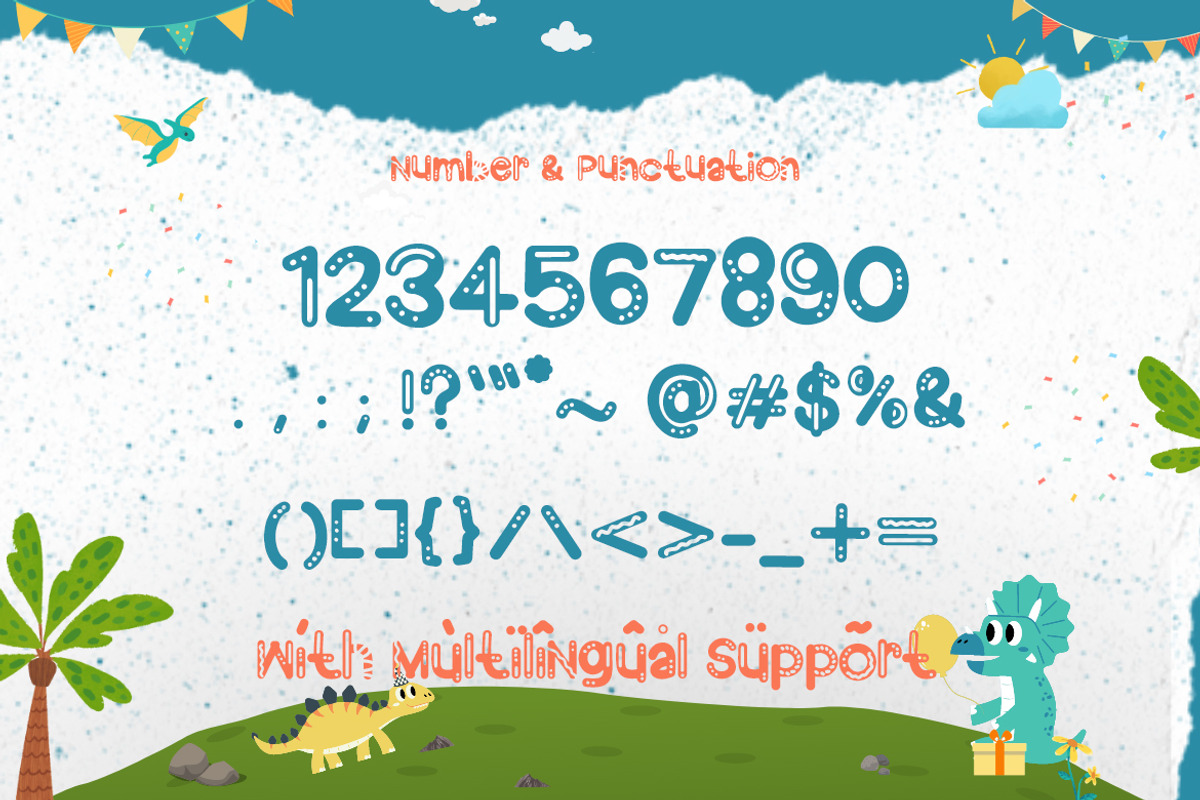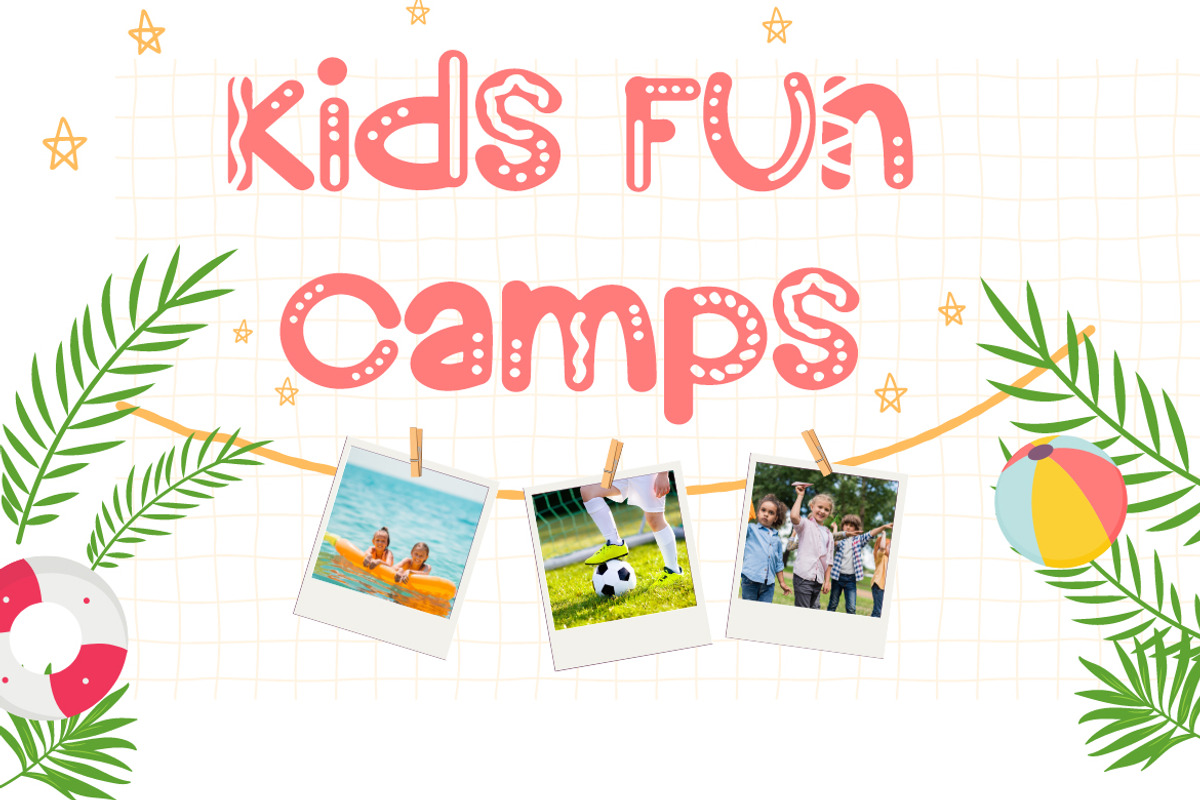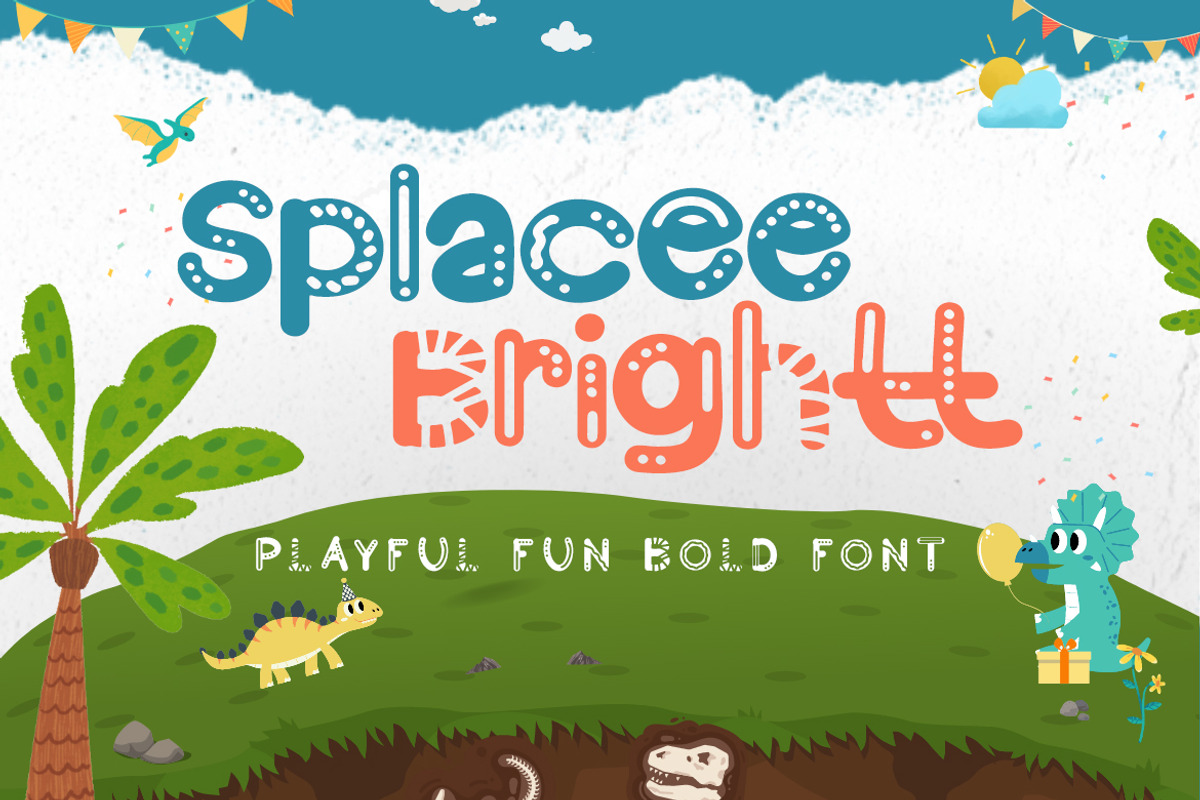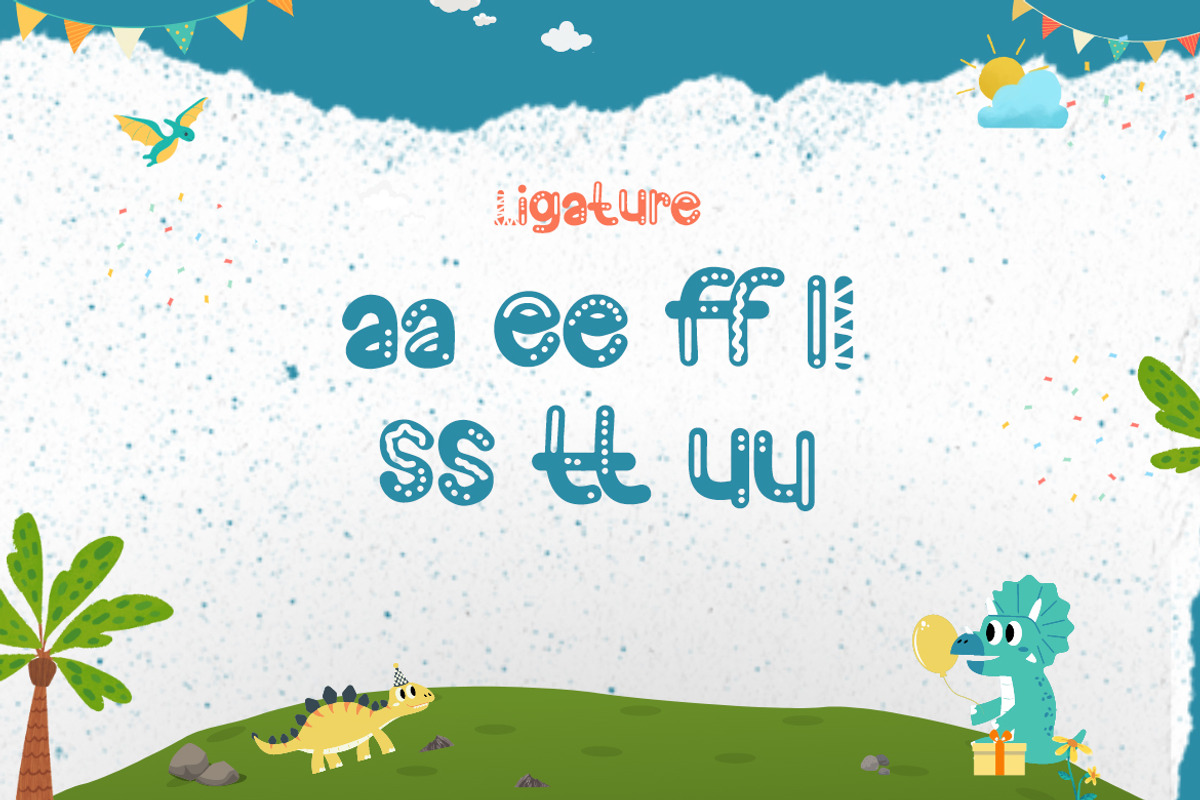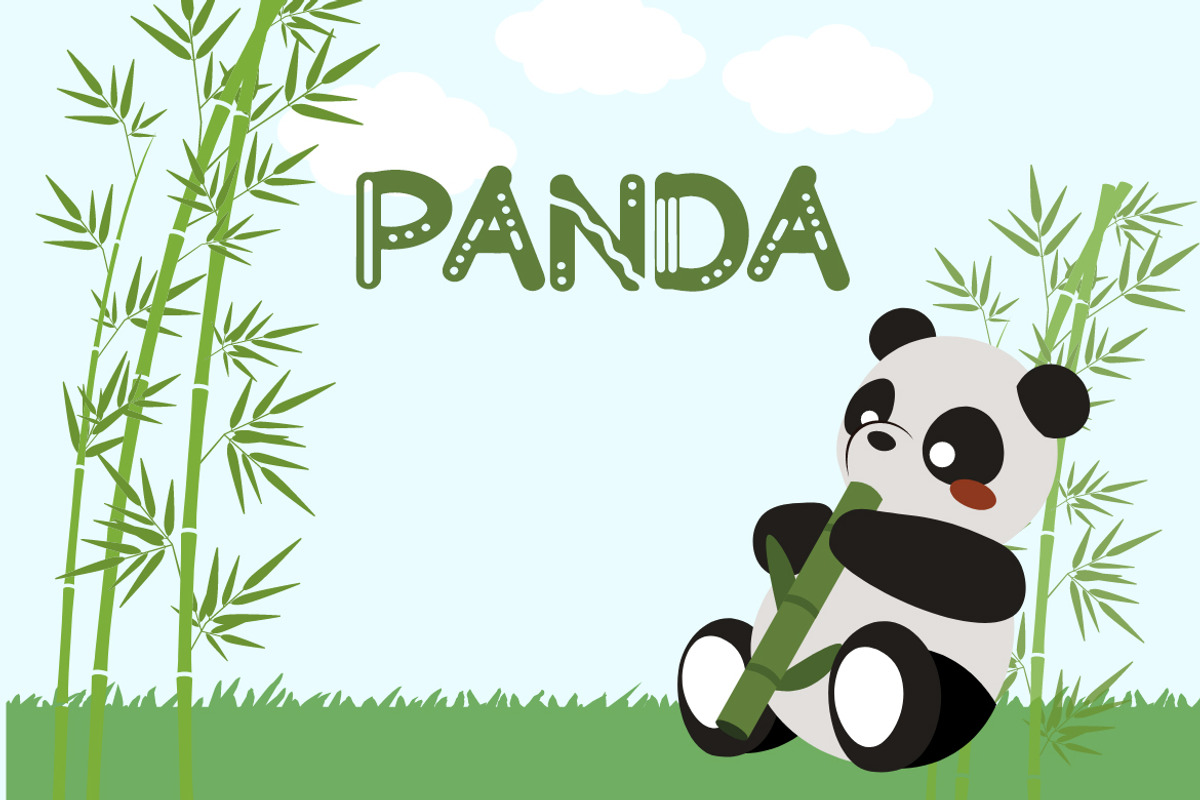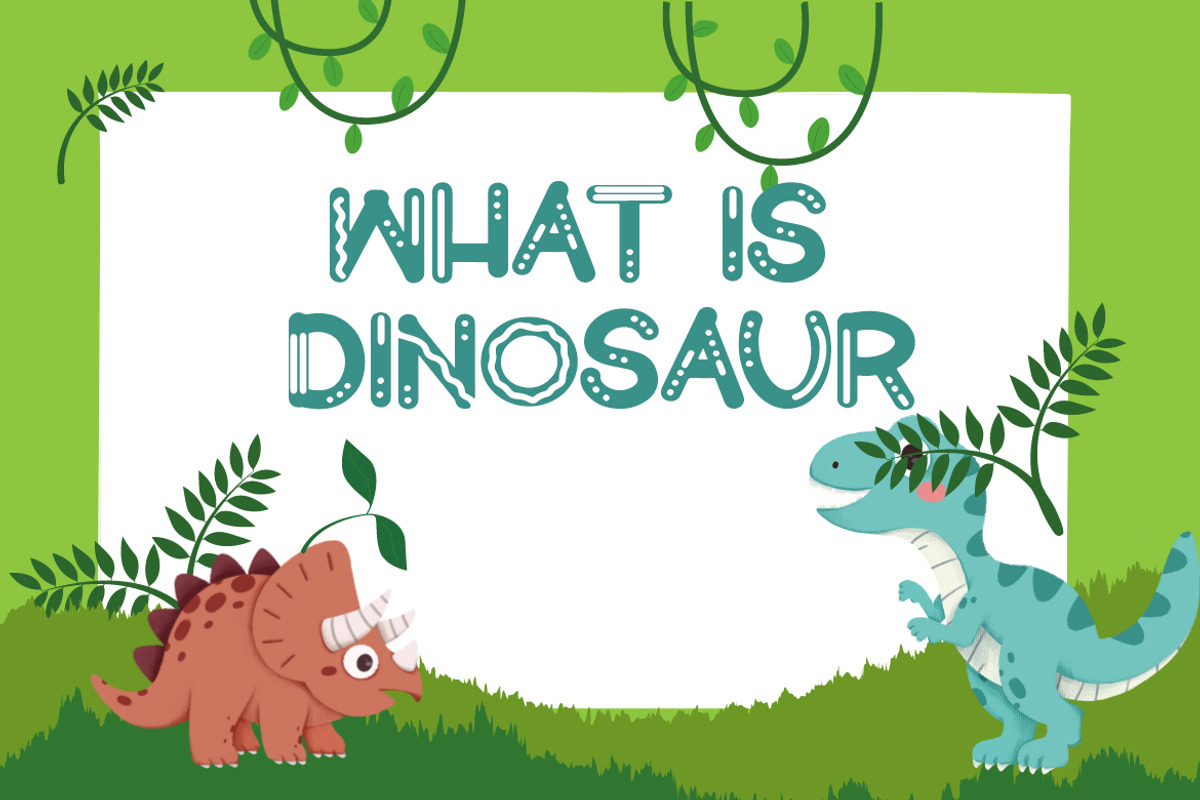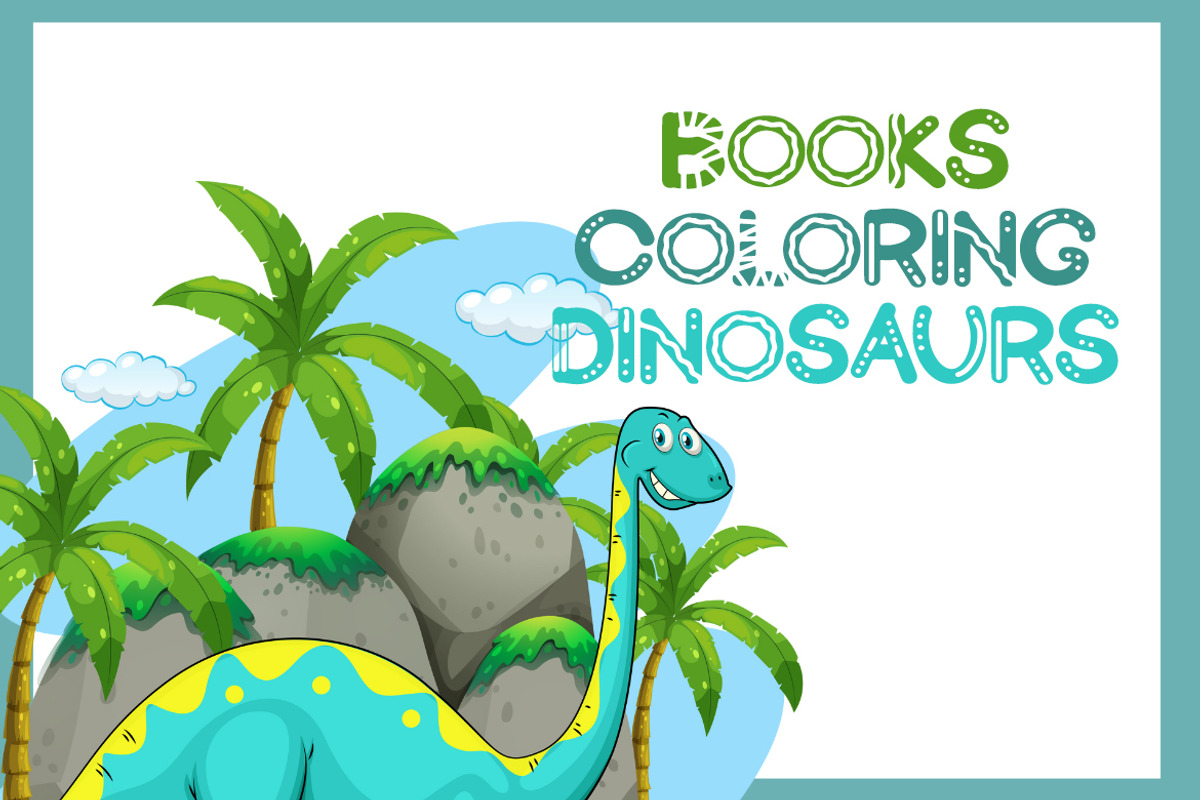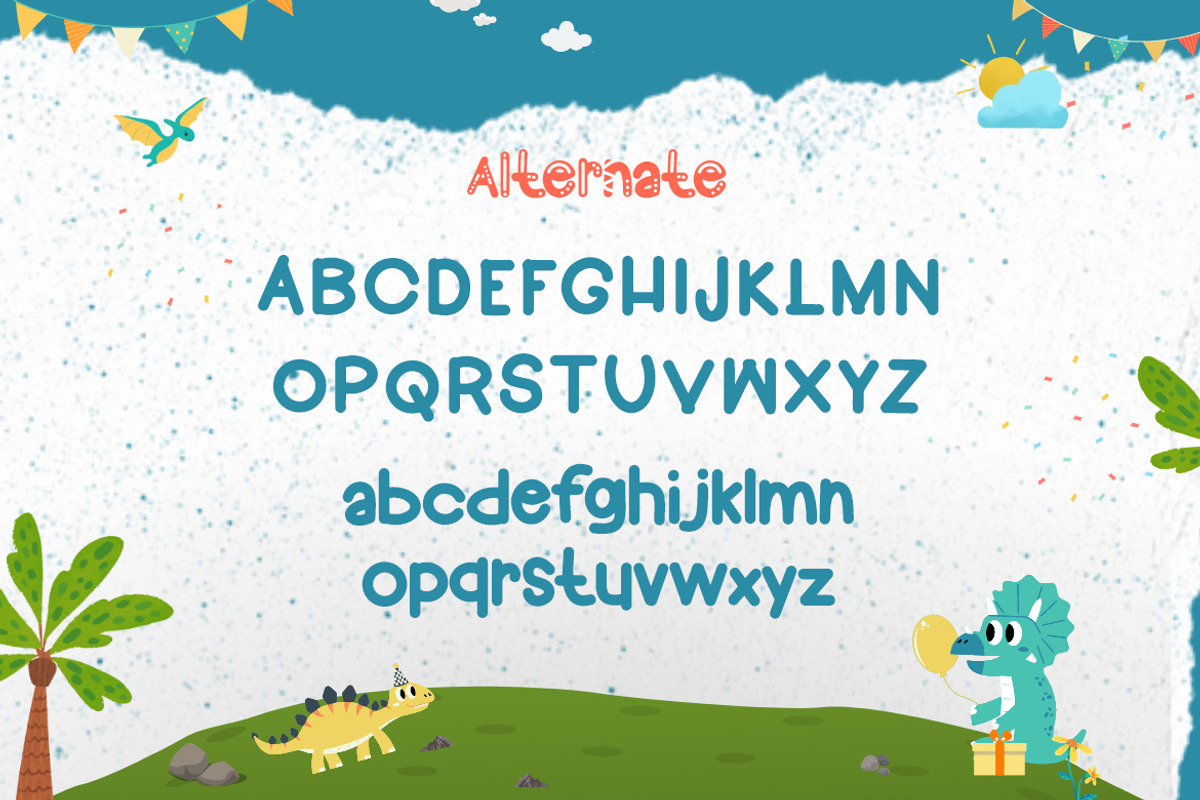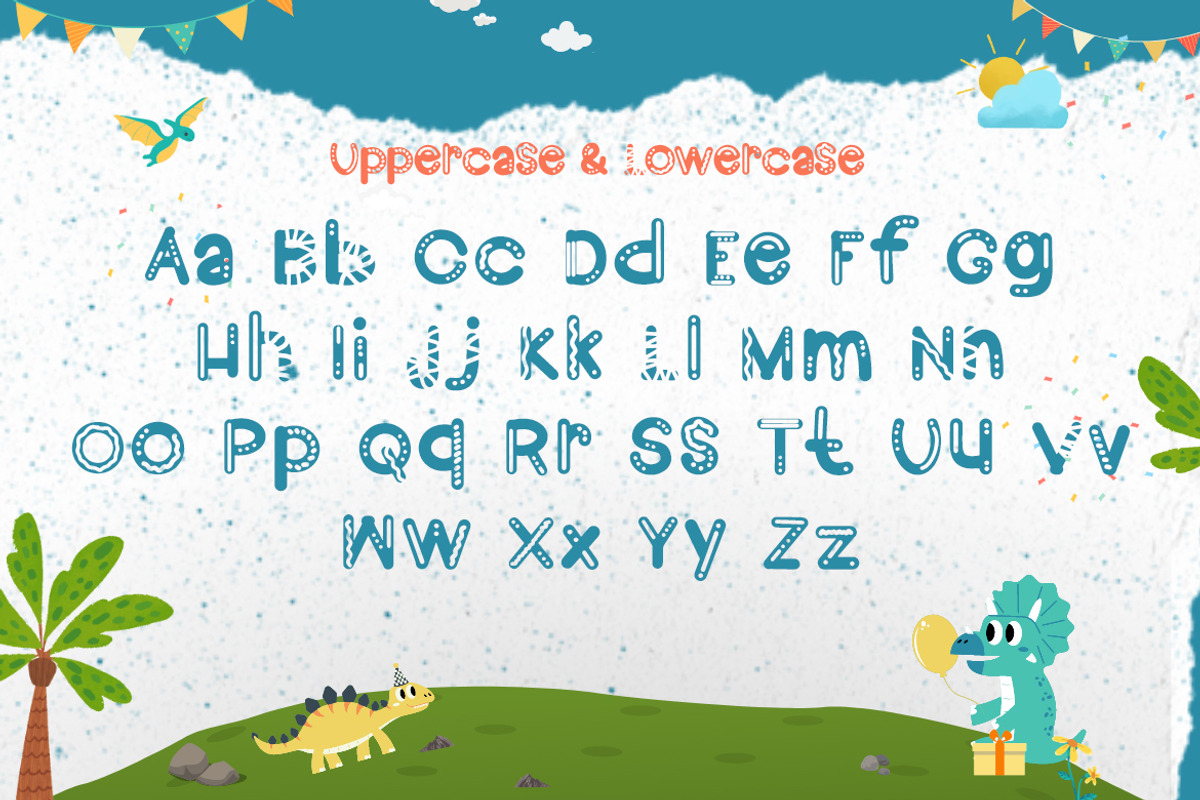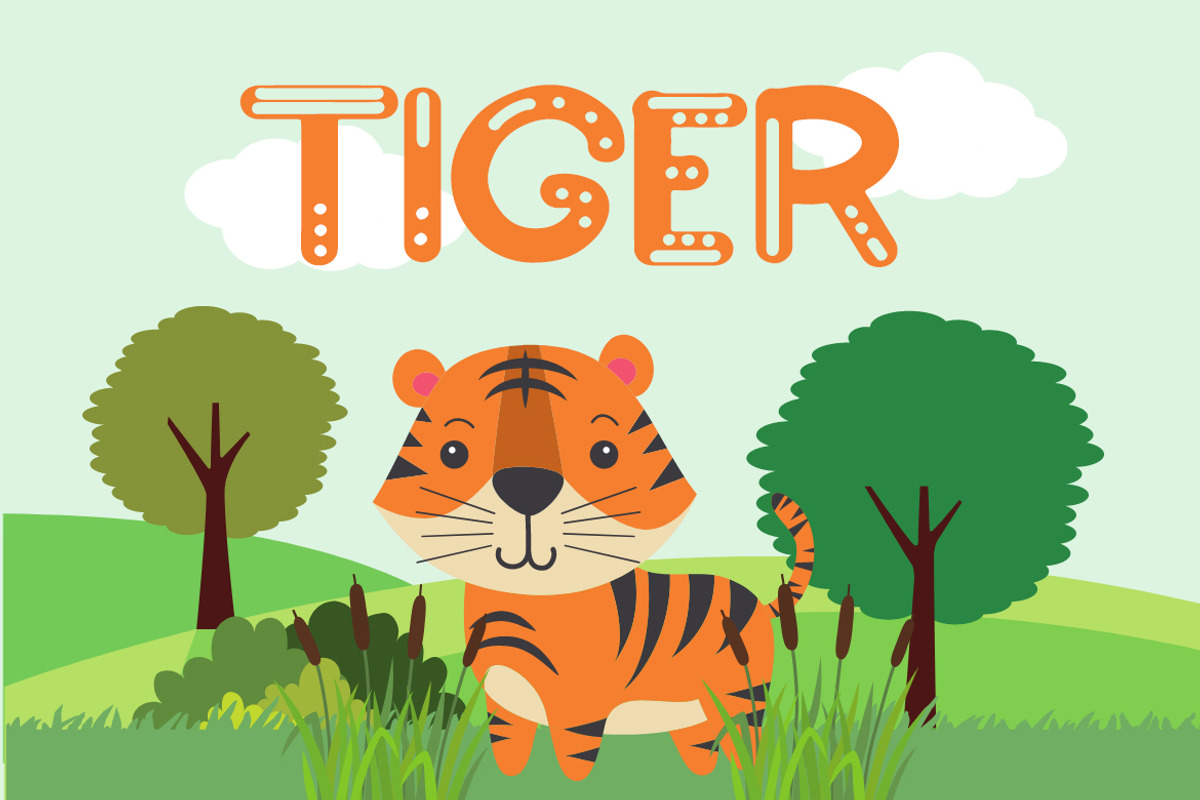
Splacee Brightt - Playful Bold Font
Introducing Splacee Brightt - Playful Bold Font
This Font is a delicate, elegant and flowing handwritten font. It has beautiful and well as a unique blend of ligatures a letter, so that the authors compose it with a and little swirly embedding, so that a modern font is formed and ready to make a statement by adding elegant and unique flair to your next design project. Add it to your most creative ideas and notice how it makes them come alive!
• Ligature & Alternate